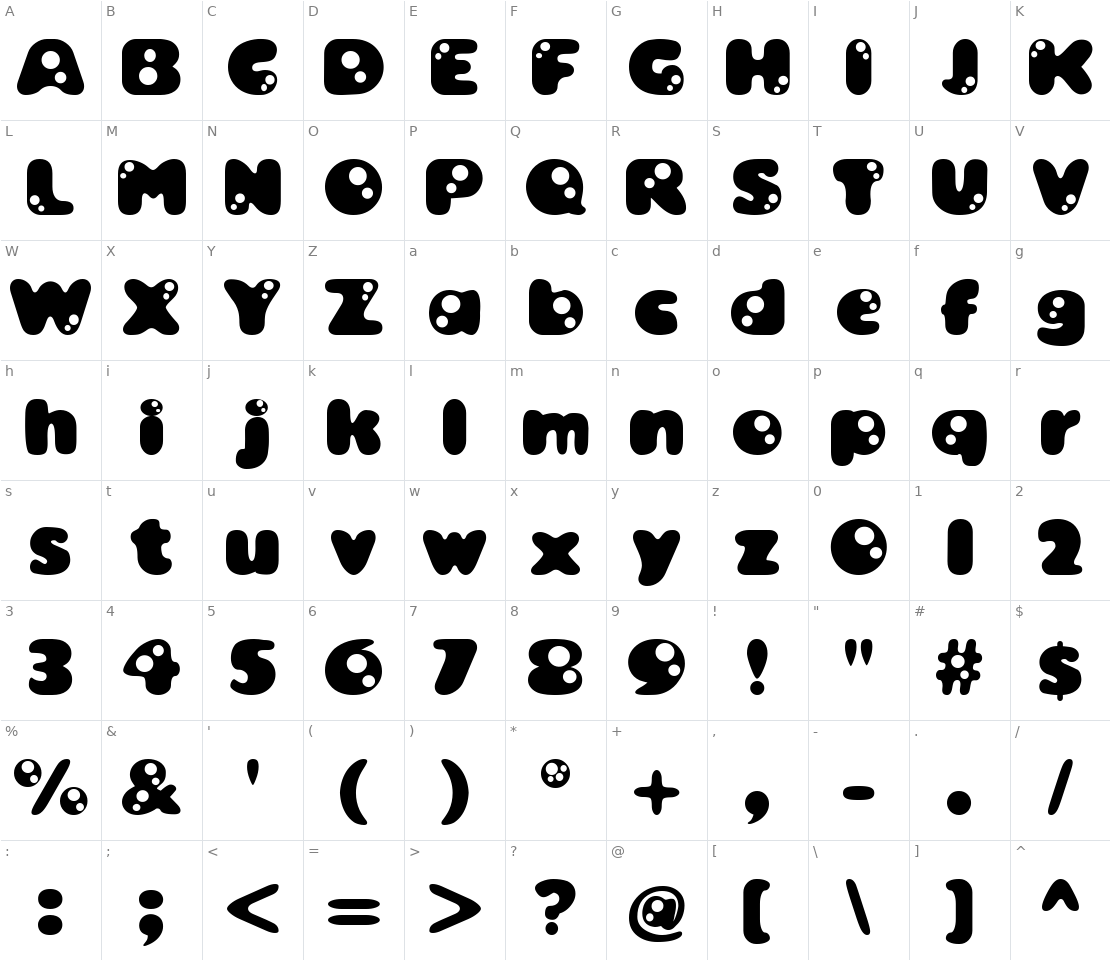
Bambina
Bambina is a big, rounded novelty face from Tomoyuki "Tee-Wat" Watanabe, with ultra-heavy letterforms that feel like they've been squeezed out of a tube. Everything about it is soft, puffy, and unapologetically playful, with a black weight that fills every inch of space it can. Best kept to headlines, posters, and display contexts where you want type that's loud and fun without a sharp edge in sight.